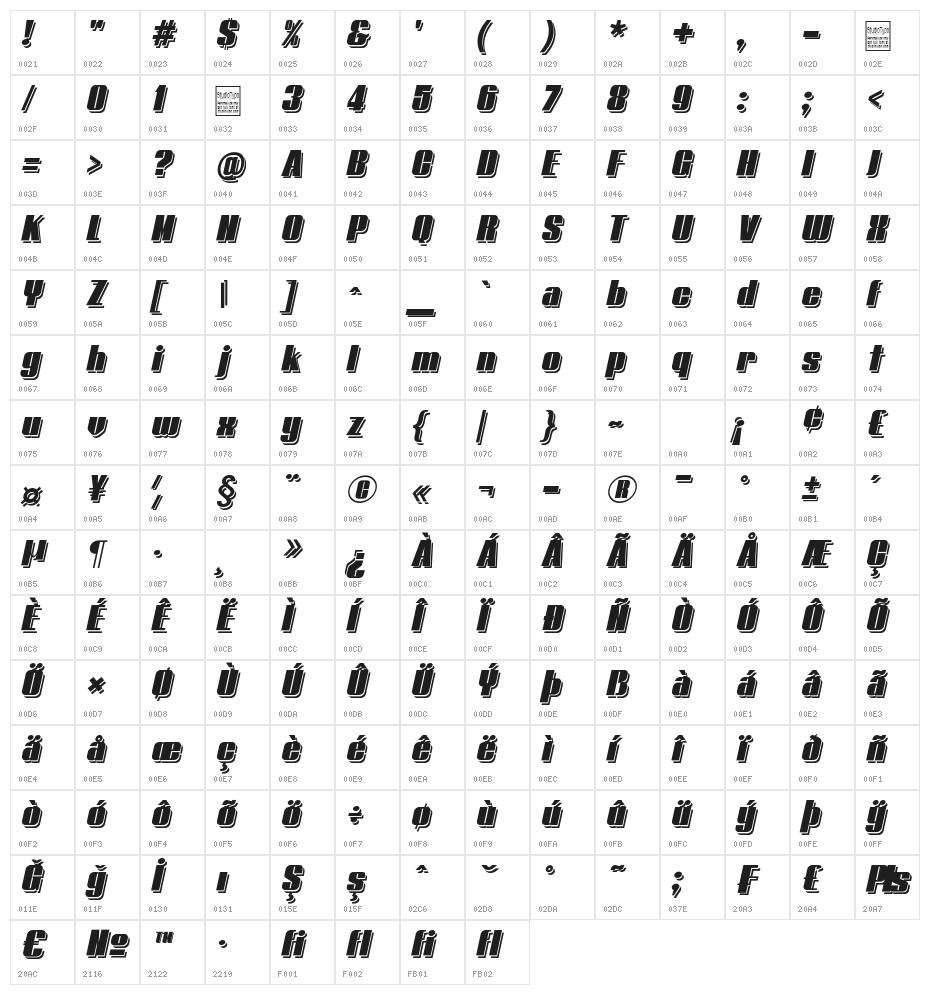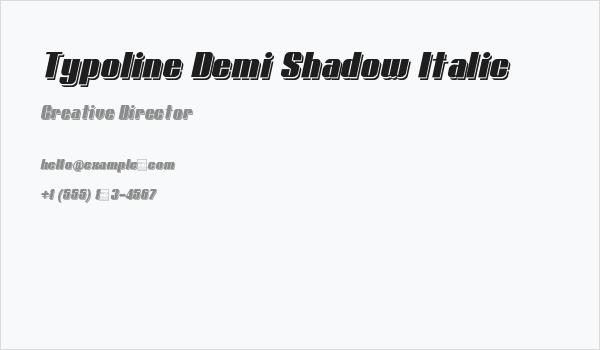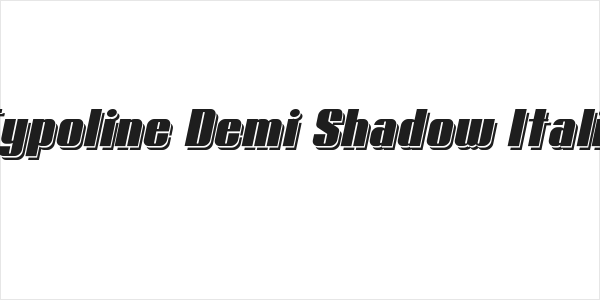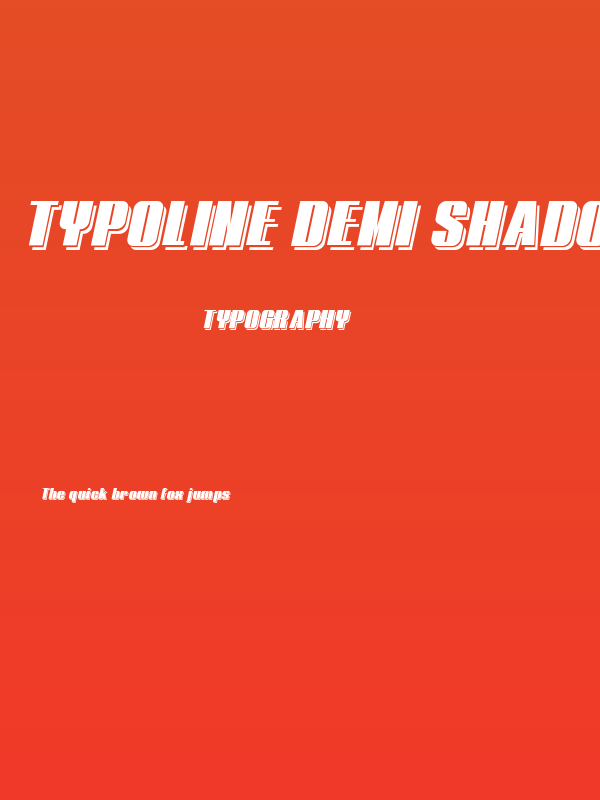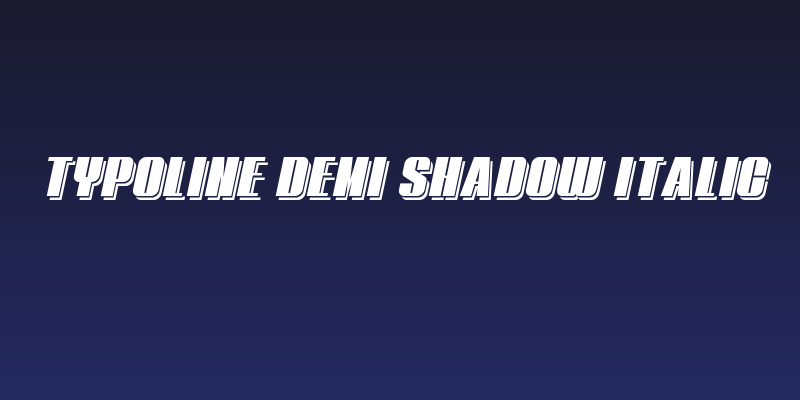
Typoline Demi Shadow Italic Font
Typoline Demi Shadow Italic Description
This font features a bold and dynamic style with a distinctive shadow effect that adds depth and dimension to each character. The italic slant gives it a sense of motion and energy, making it stand out in any design. The uppercase and lowercase letters are well-proportioned, and the numbers are clear and legible. The special characters maintain the same bold and shadowed aesthetic, ensuring consistency across all text elements. This font is ideal for creating eye-catching headlines and titles, offering a modern and impactful look.
| Proposed Projects | Ideal for posters, logos, and branding materials that require a strong visual impact. |